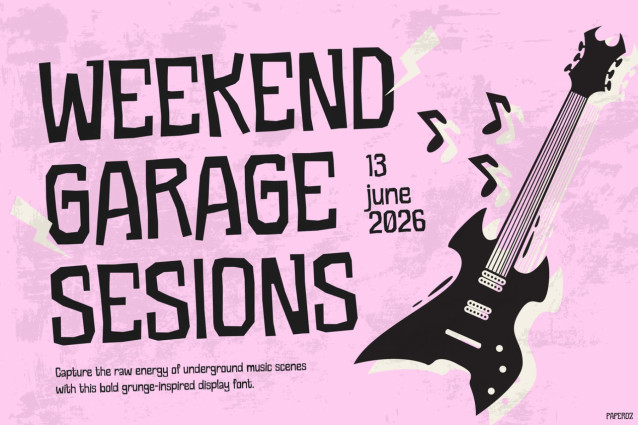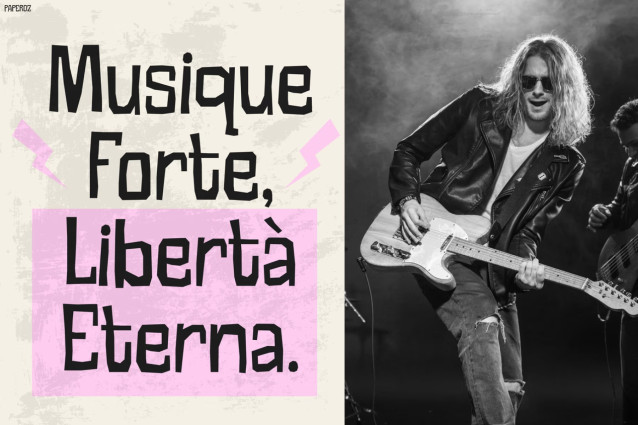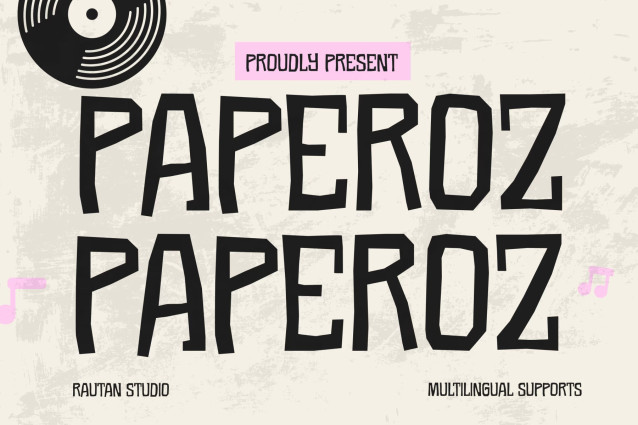
Paperoz Font
Music Font Paperoz is a bold grunge display font designed to capture the raw energy of underground music, rock concerts, and rebellious creative movements. Not only does it feature rough handcrafted letterforms, but it also combines imperfect shapes and distressed details that create an authentic punk-inspired attitude. Moreover, its uneven geometry gives every word a unique and expressive character. In addition, Paperoz delivers a powerful visual impact while maintaining excellent readability. Furthermore, its edgy appearance makes posters, album artwork, and promotional materials feel more aggressive and memorable.
As a result, your designs instantly communicate freedom, noise, and creative expression. Meanwhile, its handcrafted imperfections add a human touch that makes every composition feel genuine. Additionally, with support for 67 languages, Paperoz helps artists and brands reach audiences across the globe. Therefore, it is the perfect choice for modern music and alternative
culture projects.